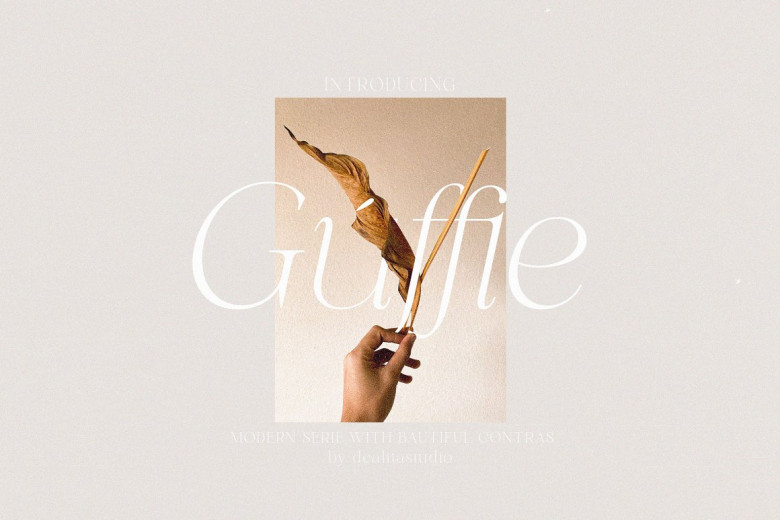
Guffie Font
Guffie is a chic & elegant modern serif font that shows beautiful contrast. It was specially designed with fashion-themed projects in mind and therefore is perfectly suited for creating elegant, chic lifestyles designs such as logos and titles for magazines.
Guffie Serif Font